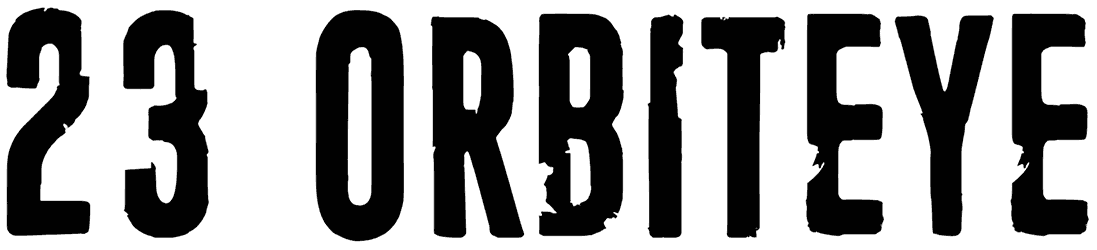
23 Orbiteye Font
With a bold and influential look, the 23 Orbiteye font gives a cold and mysterious vibe to your texts that can only be seen in historical army documents. This eroded font can be used in scary and dramatic movie titles, game names, amusement park banners, informal headlines, and club event banners.
This rustic font consists of all-caps characters with blocky designs that have faded spots in some areas of the lettering set.